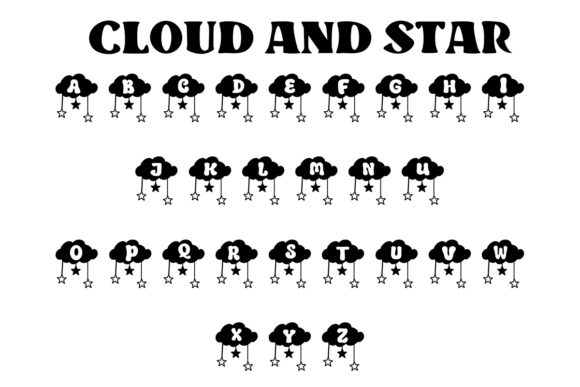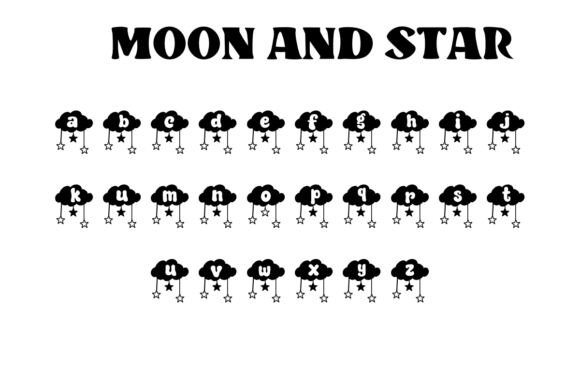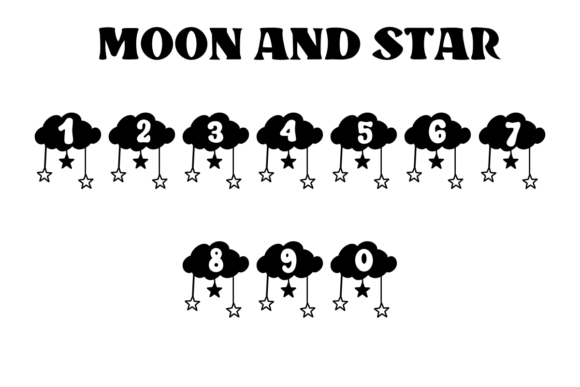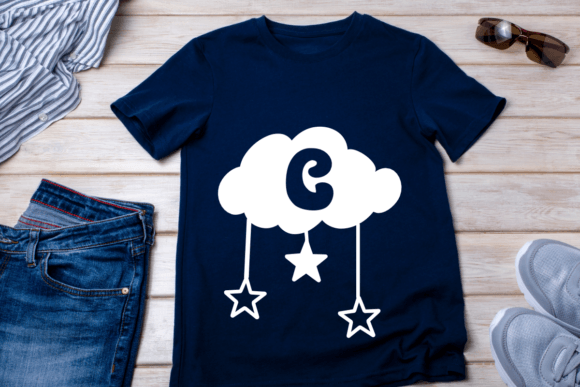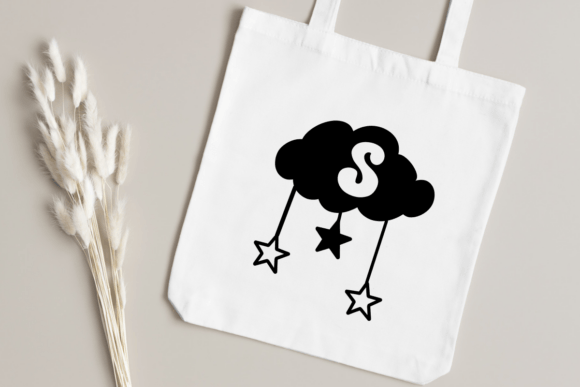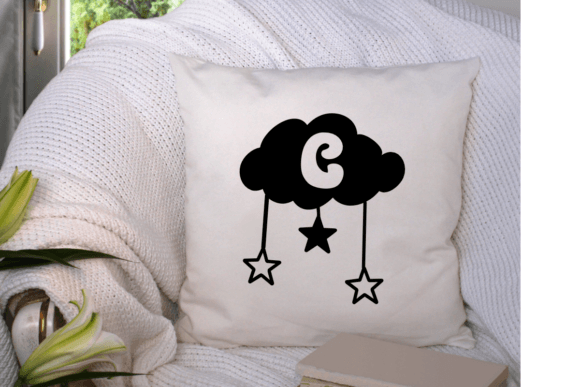
Introduction to Cloud and Star Font
Have you ever been in a moment of pure creativity, surrounded by nothing but your thoughts and a blank page? That’s exactly what I was in when I stumbled upon the Cloud and Star Font. As a designer, I’m always on the lookout for unique and high-quality design resources to bring my creative projects to life. And let me tell you, this font did not disappoint.
With its whimsical and dreamy feel, the Cloud and Star Font is perfect for adding a touch of magic to your designs. Whether you’re creating a heartfelt journal entry, a birthday card, or a social media post, this font is sure to make your content stand out. And the best part? It’s completely free to download, making it a valuable resource for designers of all levels.
Key Features of Cloud and Star Font
- Unique and stylized design featuring clouds and stars, perfect for adding a touch of whimsy to creative projects.
- Perfect for use in various creative projects, including logos, branding, and graphic design.
Honest Review: Cloud and Star Font
I recently stumbled upon the Cloud and Star Font and was excited to try it out for my next creative project. As a designer, I’m always on the lookout for high-quality design resources that can elevate my work. This font definitely delivers.
- ✨ High-quality design: The Cloud and Star Font is crisp and clean, making it perfect for a variety of creative projects.
- ✨ Versatility: This font can be used for both digital and print projects, making it a great addition to any design library.
- ⚠️ Limited character set: The Cloud and Star Font only includes a basic set of characters, which may limit its use for more complex projects.
Overall, I’m impressed with the Cloud and Star Font and would definitely recommend it to designers looking for a high-quality, versatile font for their next creative project.
Common Use Cases for Cloud and Star Font
Cloud and Star Font is perfect for:
1. Social media graphics and ads.
2. Branding and logo designs.
3. Infographics and educational materials.